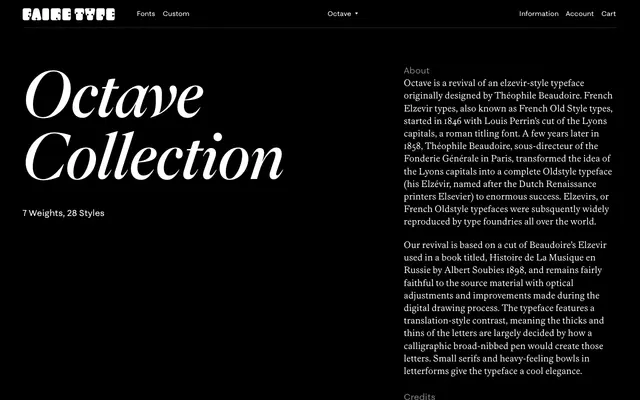
Octave
Faire Type · Maxime Gau · 2023
Octave specimen from Faire Type
A revival of Théophile Beaudoire's 19th-century French Elzevir type, drawn by Maxime Gau from an 1898 book source with a Text and Display subfamily across seven weights.
Based on Beaudoire's Elzévir as it appeared in Albert Soubies's Histoire de La Musique en Russie (1898), the design preserves the translation-axis contrast, compact serifs and heavy bowls that characterise the French Old Style tradition. Seven weights from Hairline to Black run across both the text-oriented Octave and the optically adjusted Octave Display, each with matching italics added in March 2025. The 28-style family sits well in literary publishing and editorial contexts where a cool, classically French register is wanted.
A revival of Beaudoire's French Elzevir, itself a 19th-century interpretation of Oldstyle forms. Features translation-axis contrast consistent with broad-nib calligraphic origins, placing it firmly within the humanist old style tradition.